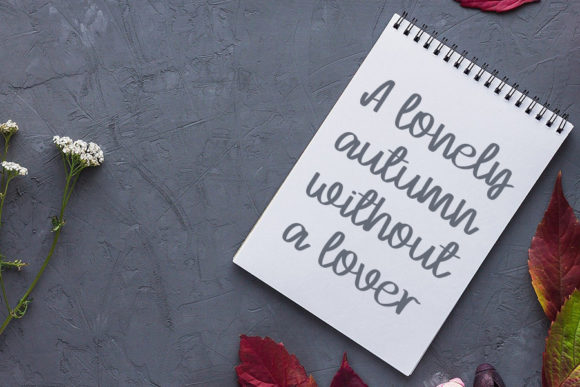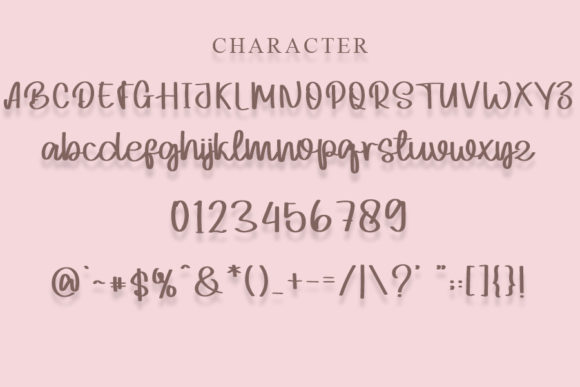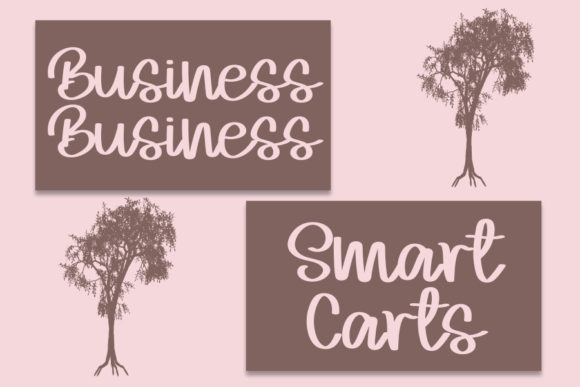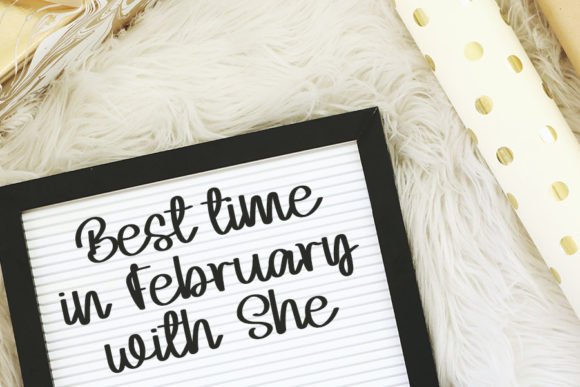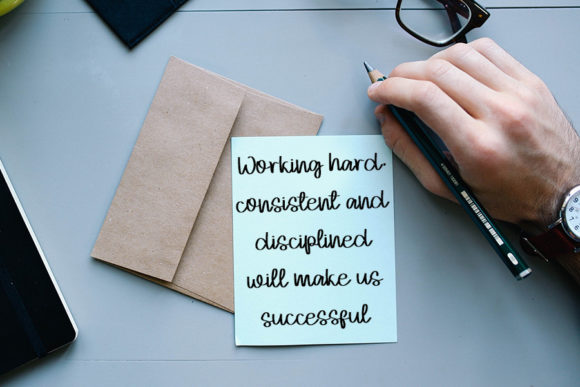
Beauty Brilliant Font
About Beauty Brilliant Font
Beauty Brilliant is a cute and charming handwritten font. Not too thin and not too thick, balanced and varied, this font was designed to enhance the beauty of your projects.